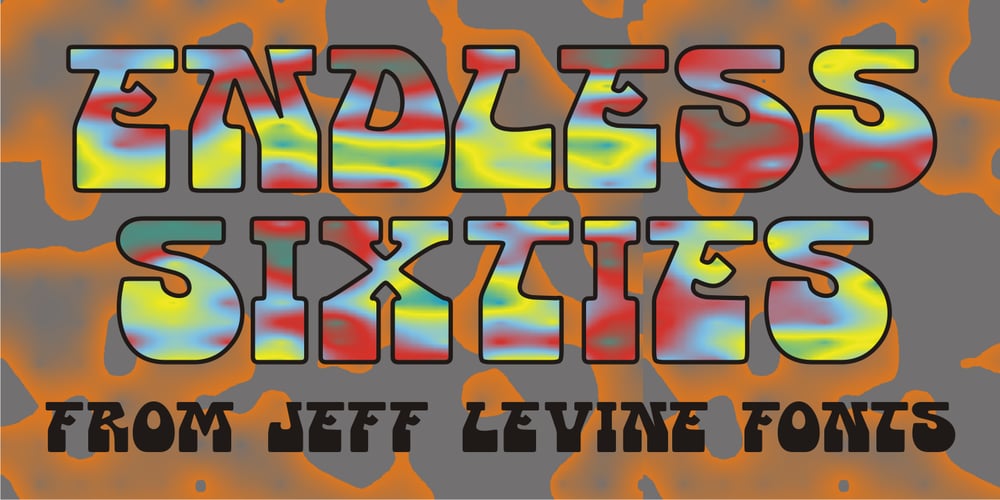
Endless Sixties JNL
Endless Sixties JNL font
Endless Sixties JNL Font Family was designed by Jeff Levine and published by Jeff Levine. Endless Sixties JNL contains 1 styles and family package options. Sunny summer days, white sand beaches and radical waves come to mind with Endless Sixties JNL, inspired by a poster for a surfing movie entitled “Planet Aura”. The image of the poster was provided by Gene Gable, who has on many occasions supplied Jeff Levine with many interesting font inspirations.